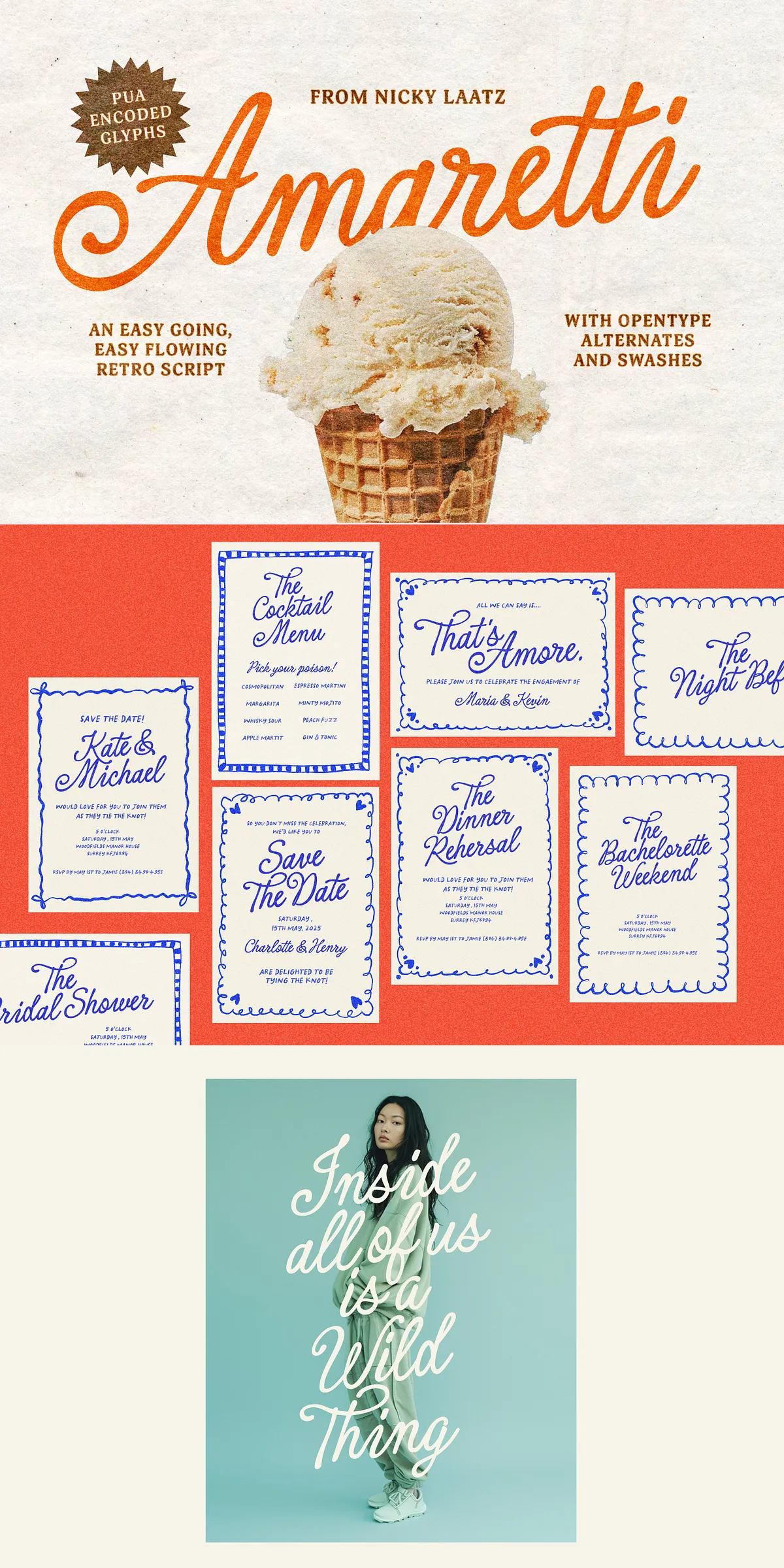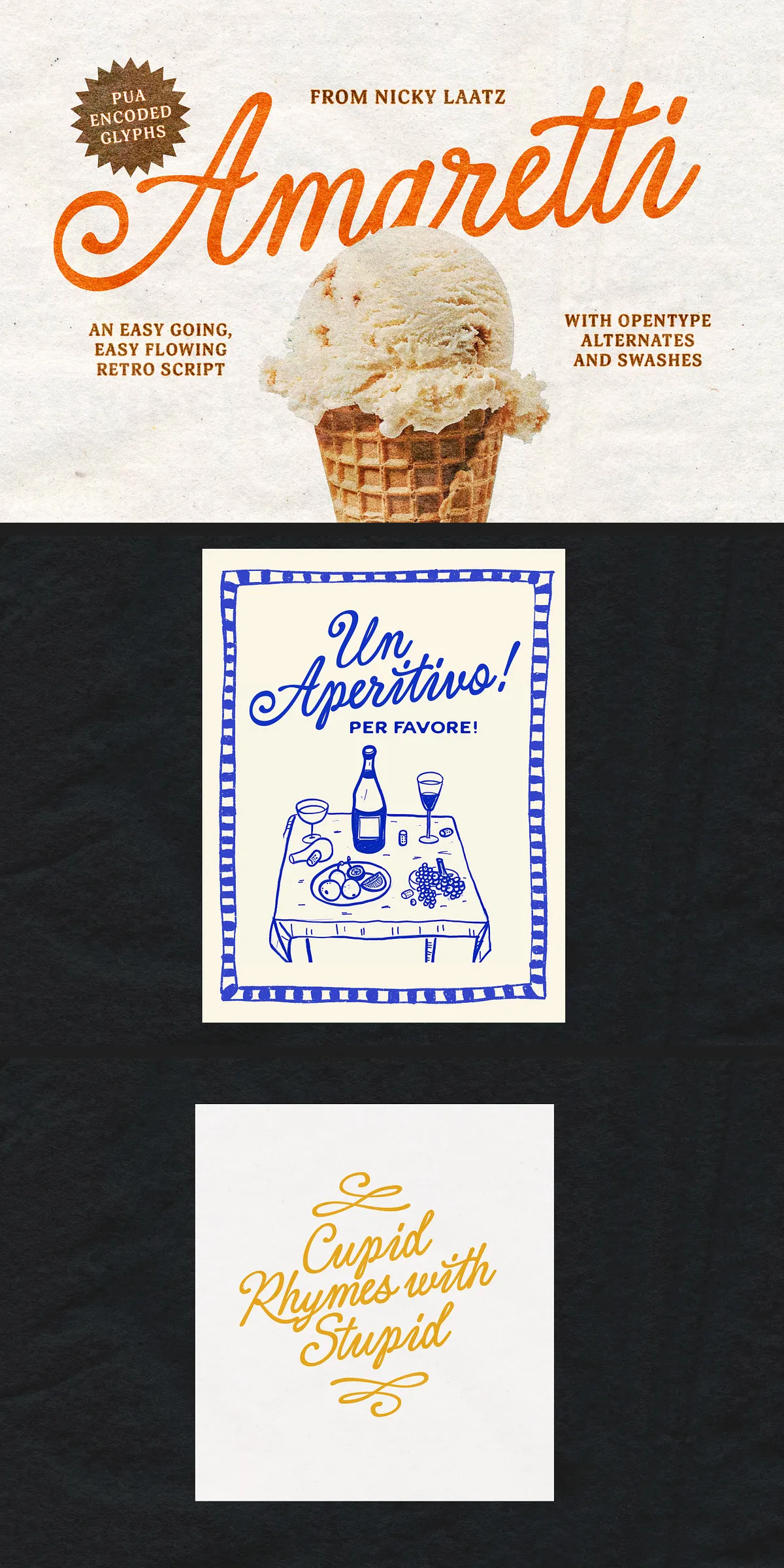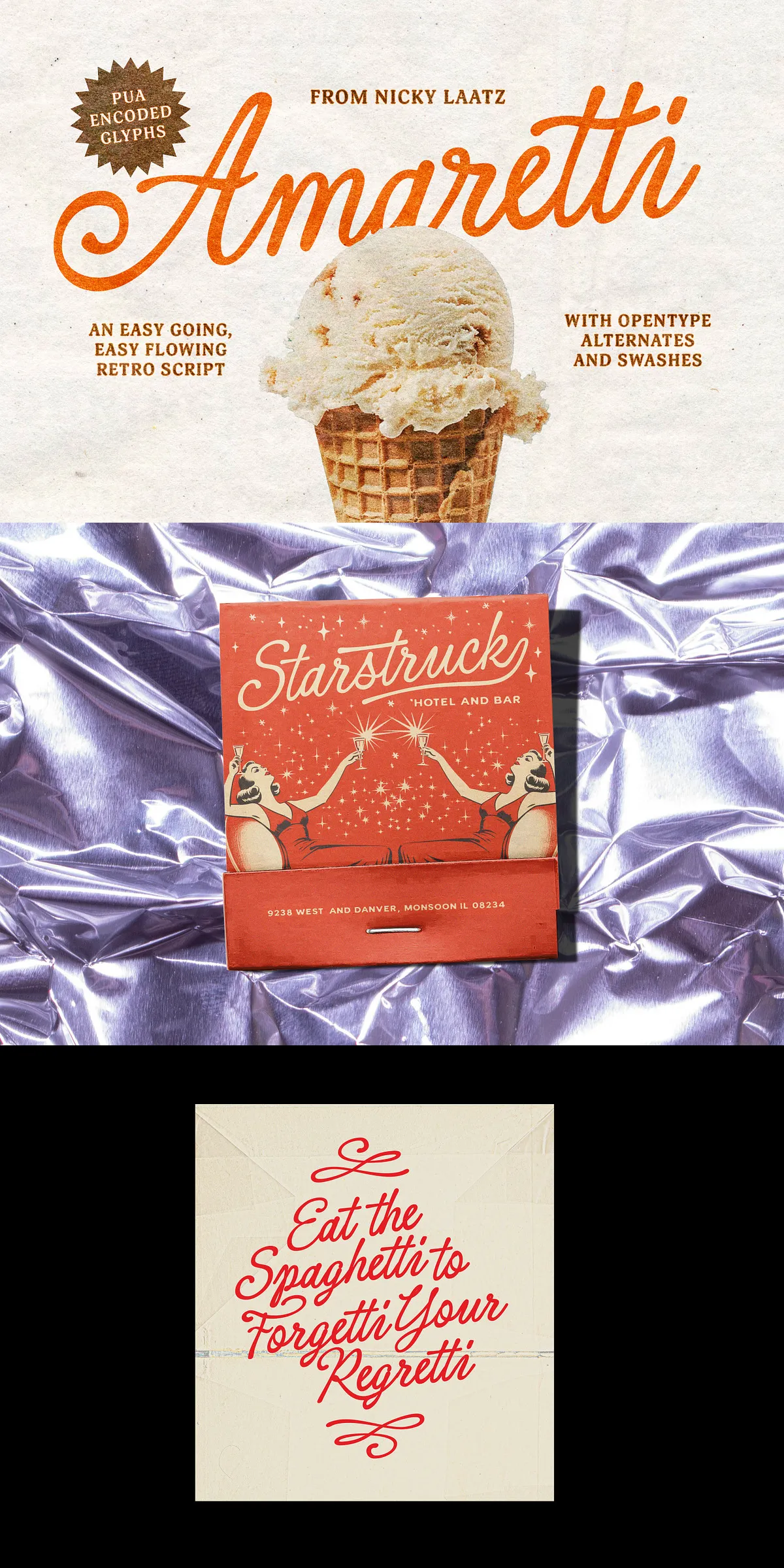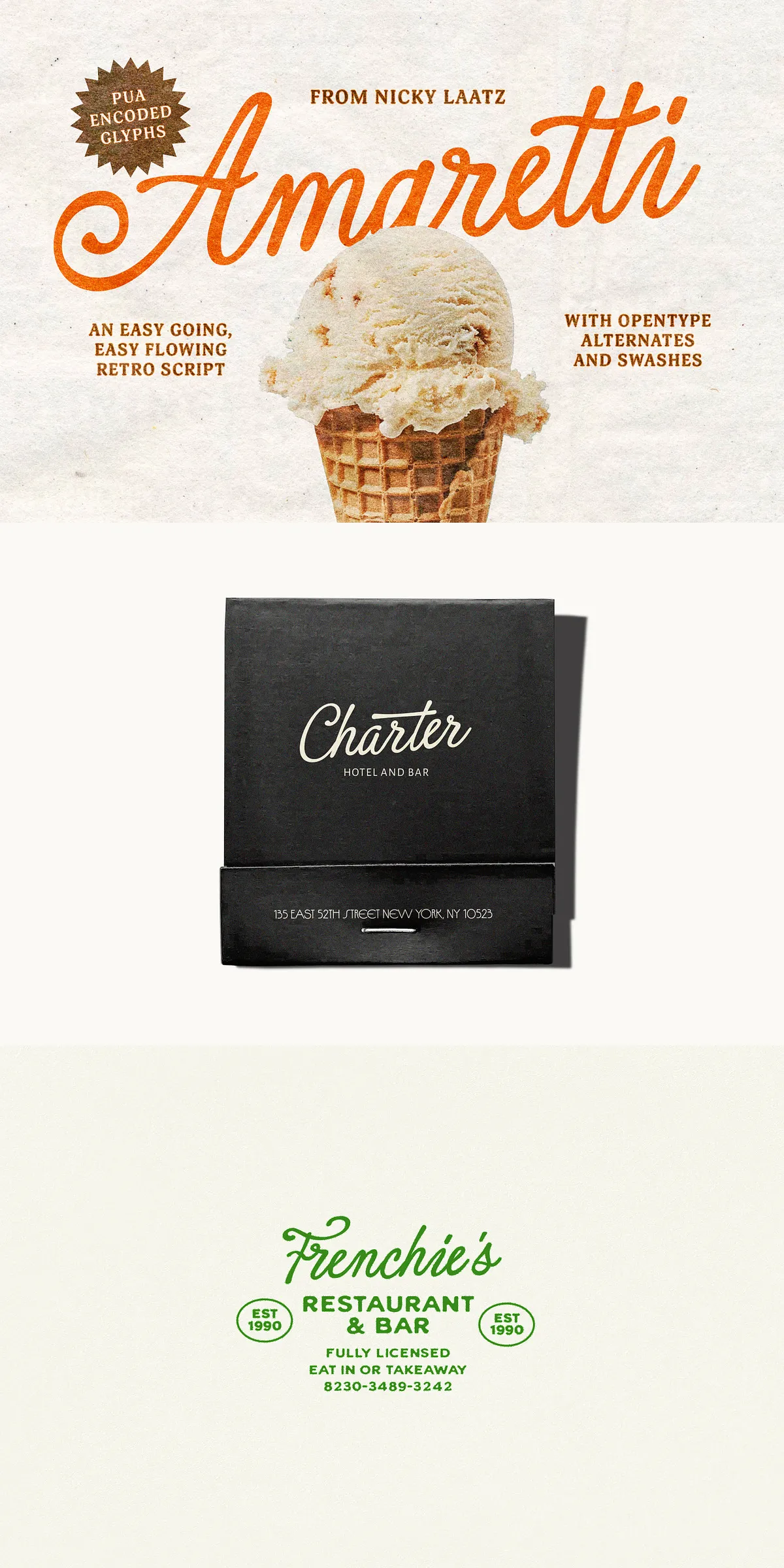
Amaretti is a beautifully designed calligraphic script font that captures the essence of vintage hand-lettered advertising and signage from the 1950s. This font draws inspiration from the elaborate scripts often seen in mid-century commercial art, evoking strong feelings of nostalgia, warmth, and familiarity. With its smooth, flowing strokes and sumptuous swirls, Amaretti brings a playful yet elegant tone to any creative project, adding vibrancy and nostalgic charm.
Distinctive Vintage Calligraphic Style with Radiant Flourishes
Amaretti stands out with its beautifully crafted sweeping curves and artistic flourishes that create a sense of movement and life in every letterform. Its design balances sophistication with playfulness, making it perfect for projects seeking both refinement and approachable charm. The font’s calligraphic roots recall vintage signage aesthetics with intricate swashes that enhance your text with graceful accents, ensuring your designs exude a dynamic and uplifting character.
Three Versatile Weights and Oblique Styles for Creative Flexibility
The Amaretti family includes three distinct weights with corresponding oblique versions, enabling designers to tailor the style to match the project’s tone perfectly. Whether you want a more subtle, delicate appearance or a bold, statement-making script, Amaretti provides enough variety to suit multiple applications—from elegant invitations and branding materials to lively packaging and advertising.
Rich OpenType Features for Expressive Typography
Designed with an extensive range of OpenType features, Amaretti offers numerous whimsical alternates, ligatures, and swashes that add personality and uniqueness to your compositions. These rich typographic options allow for natural letter transitions and enhanced expression, giving your text a lively and custom-crafted appearance. The font supports workflows that leverage OpenType capabilities, making it an excellent choice for advanced typography software.
Language Support and Accessibility
Though Amaretti primarily supports English, it includes several commonly used diacritic marks to accommodate basic language needs. For more extensive multilingual support, additional inquiries can be made. PUA (Private Use Area) encoding guarantees that users of design tools like Canva can access all glyphs easily, thus expanding the font’s accessibility for varied design platforms.
Ideal Applications for Nostalgic and Elegant Designs
Amaretti is particularly suited for projects that aim to evoke a sense of vintage nostalgia coupled with elegance and playfulness. Use it for branding that demands a personal, handcrafted feel, signage that captures attention, packaging that exudes charm, or editorial layouts that benefit from sophisticated script accents. Its vintage inspiration makes it ideal for retro-themed events, artisanal product labels, boutique logos, and creative advertising campaigns seeking to stand out with a timeless aesthetic.
Summary of Amaretti Font Features
- Elegant script inspired by 1950s vintage hand-lettered advertising
- Three weights with corresponding oblique versions for versatility
- Sumptuous swirls, sweeping curves, and playful flourishes
- Extensive OpenType alternates, ligatures, and swashes
- Supports English with several popular diacritic marks
- PUA encoded for easy use in design platforms like Canva
- Perfect for branding, signage, packaging, and nostalgic design projects
Bring Nostalgic Elegance to Your Projects with Amaretti
For designers aiming to weave warmth, nostalgia, and lively sophistication into their work, Amaretti is a powerful font choice. Its smooth calligraphic lines and vintage-inspired details provide the perfect balance between playful expression and timeless elegance. Explore the full range of features today and create captivating typography that honors the charm of the past while enhancing modern design aesthetics.